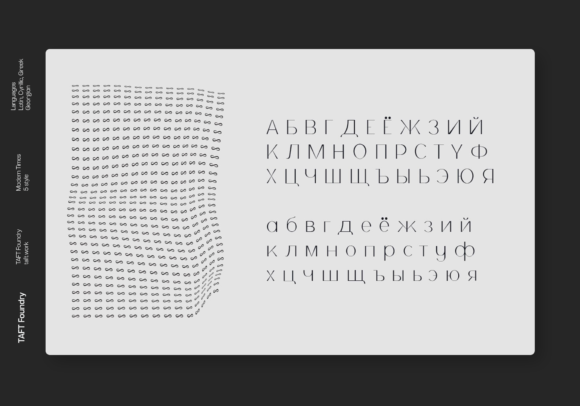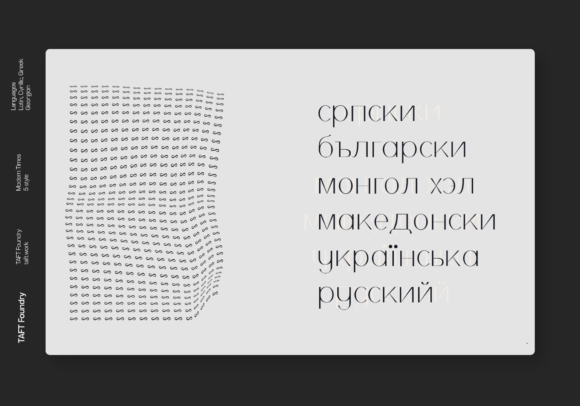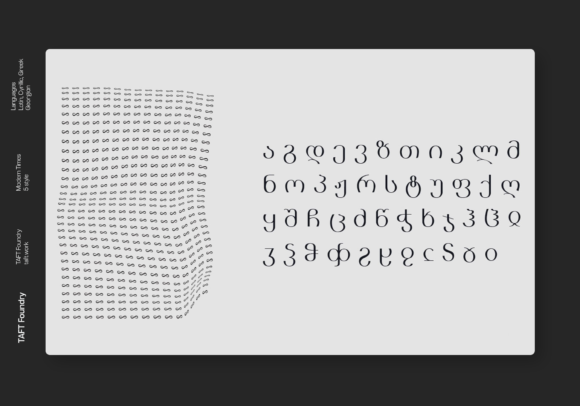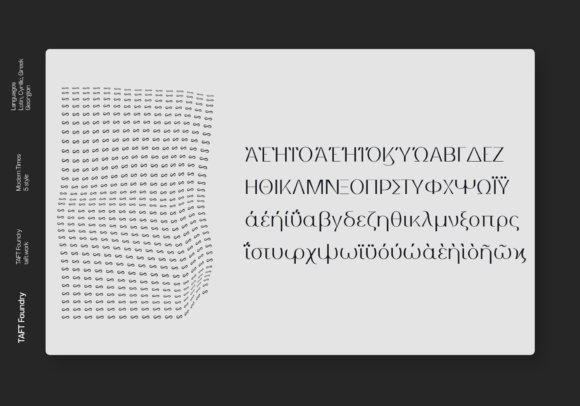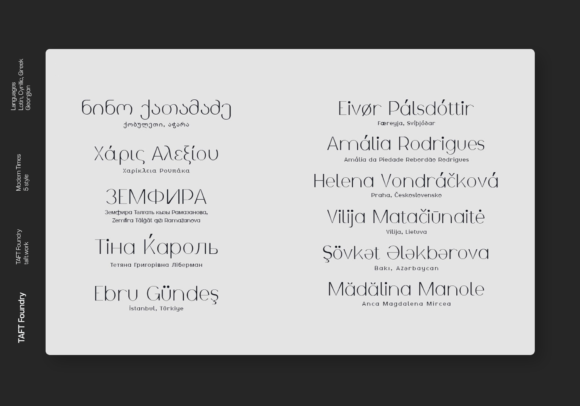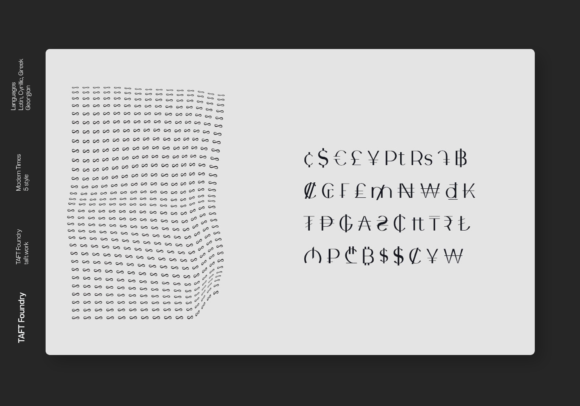
Introduction to Modern Times Font
Modern Times is a clean and modern looking display font.
Add this minimalist and techno styled font to your web designs, logos or pretty much anything that requires a smart, cool touch .